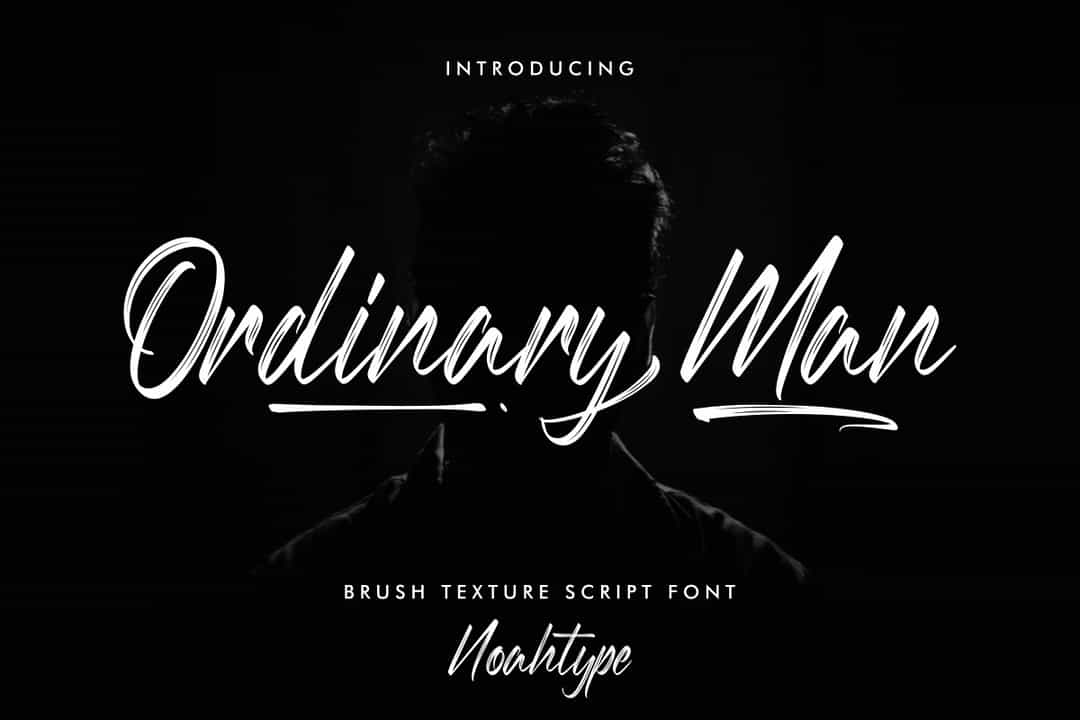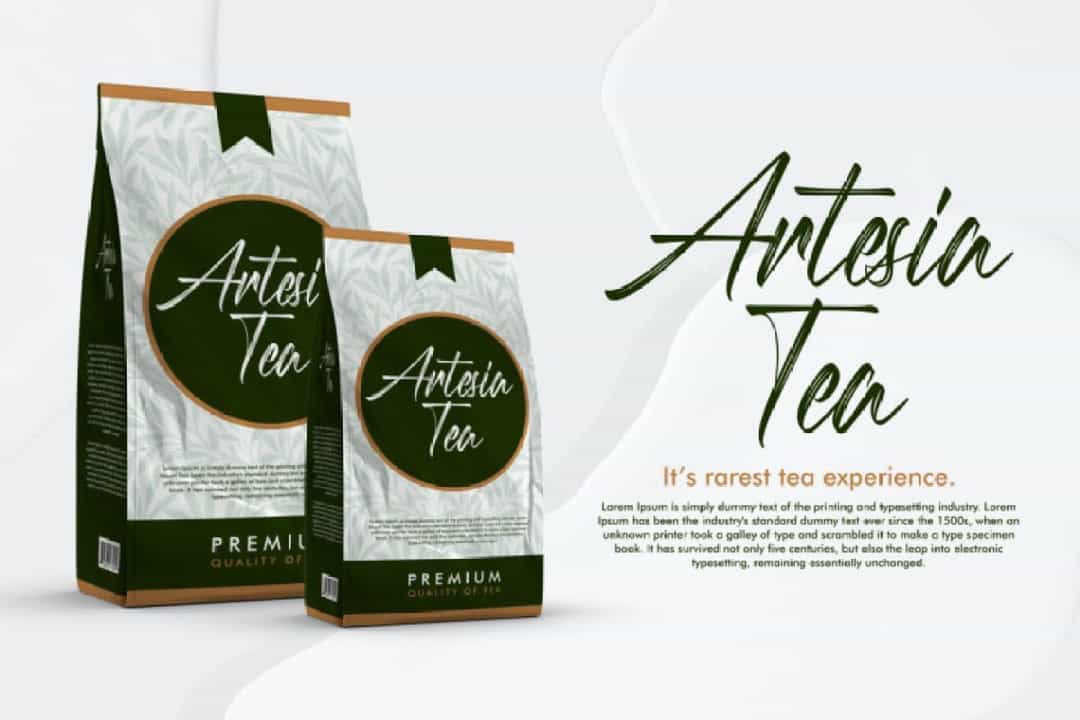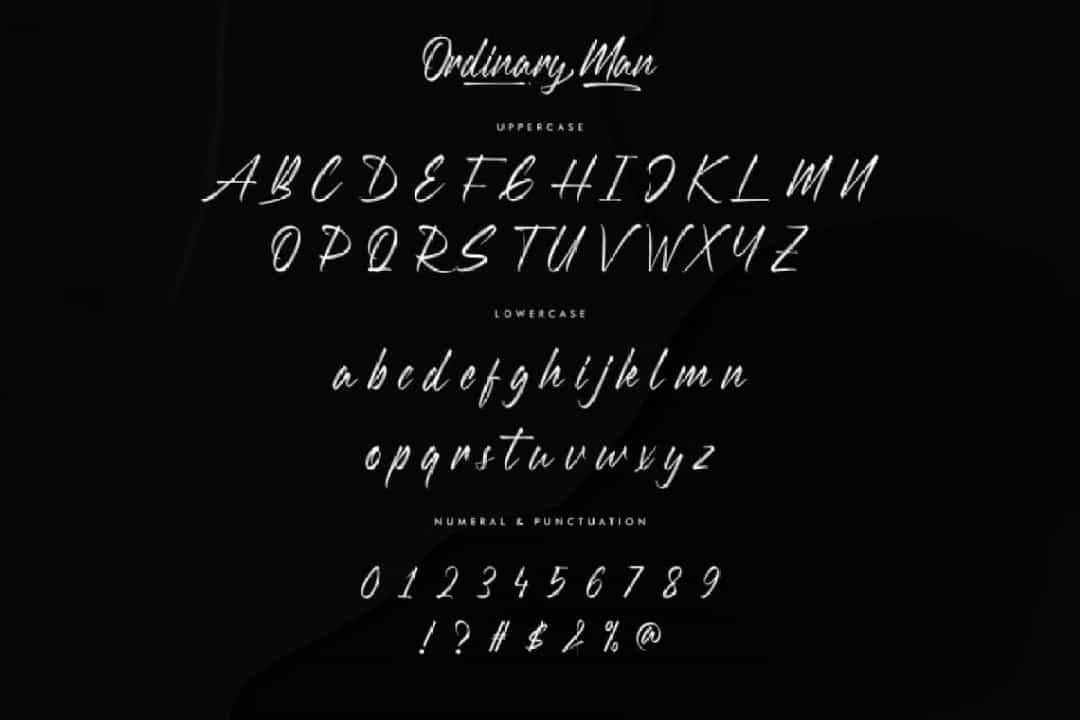
Ordinary Man is a stunning contemporary brush type designed by Noah-Type that adds personalization and unique handwriting styles to any design. Careful consideration was taken in creating this font to look as realistically like handwritten script as possible for optimal use later. Our goal in designing fonts such as these was to achieve free-flowing character that leaves an authentic impression when used later on.